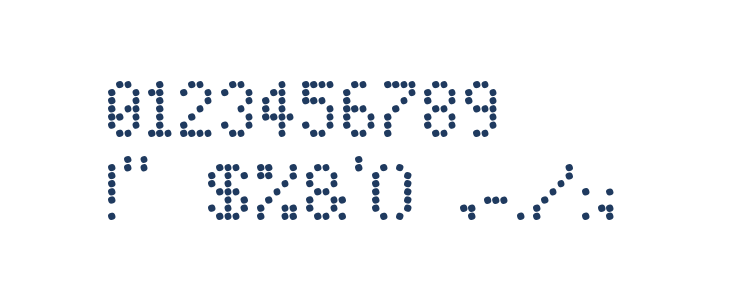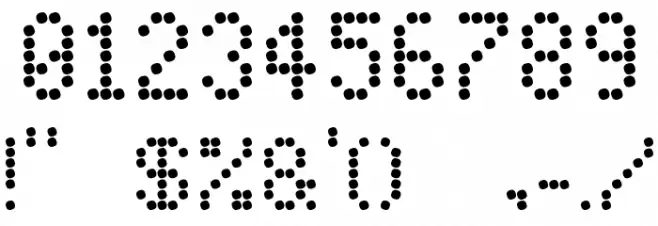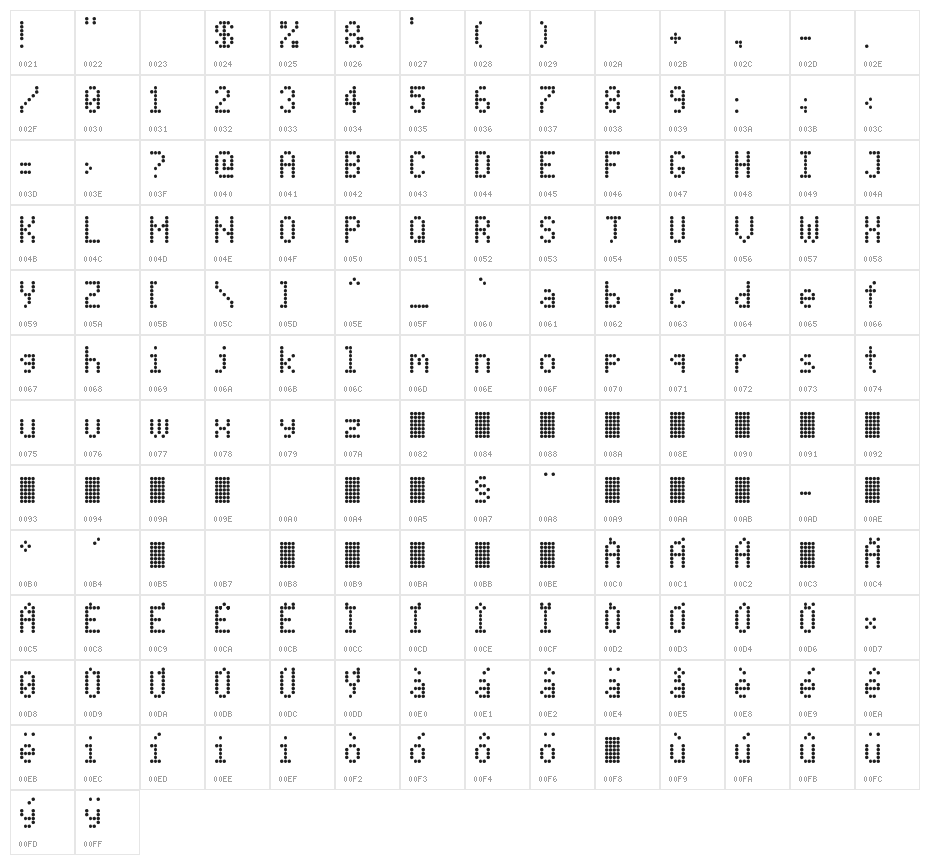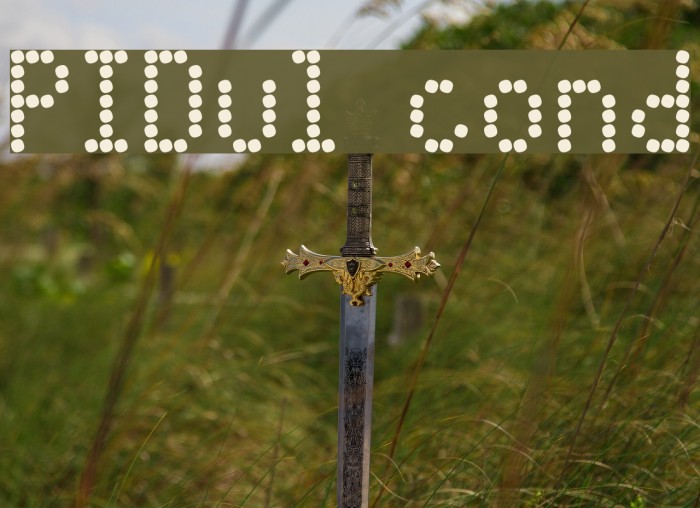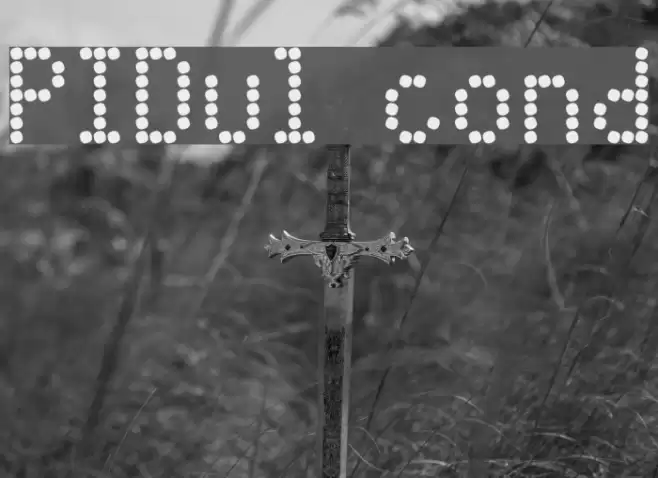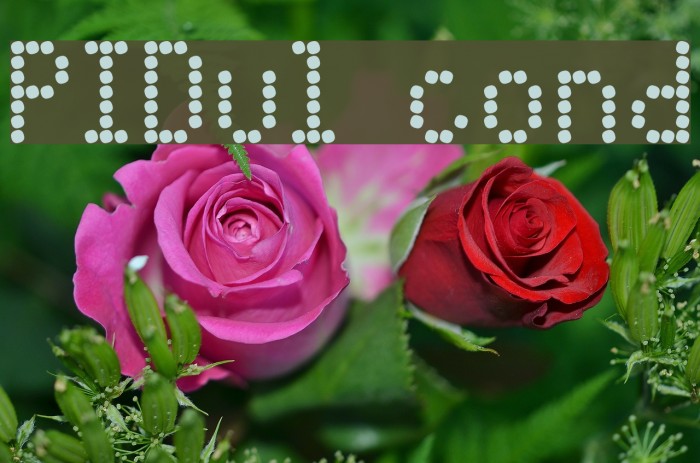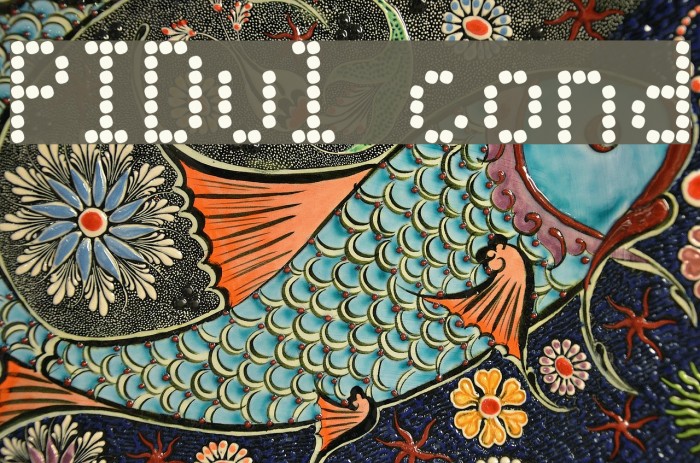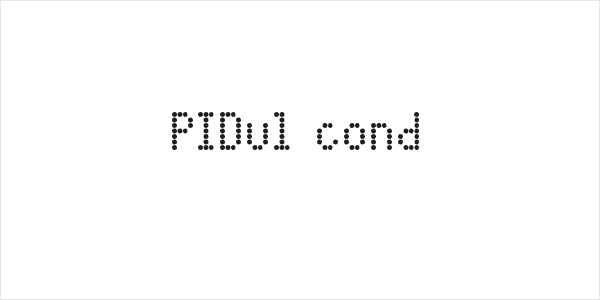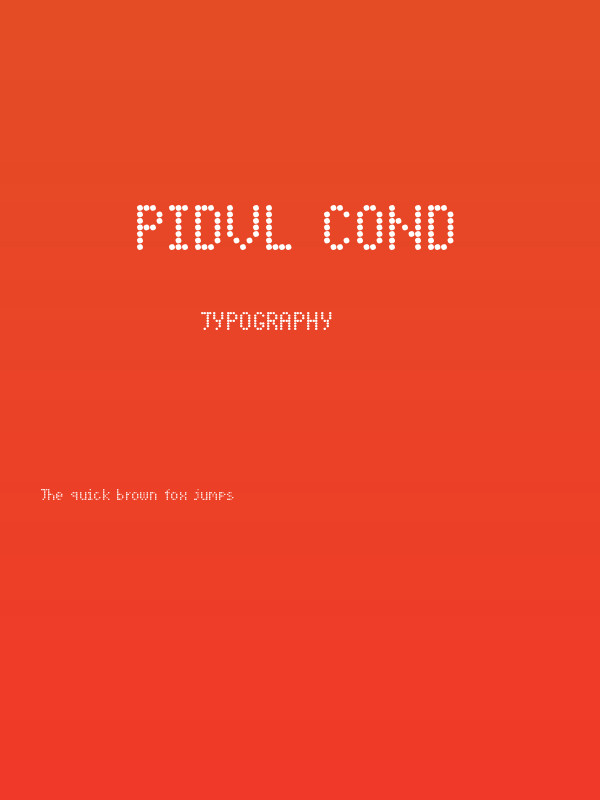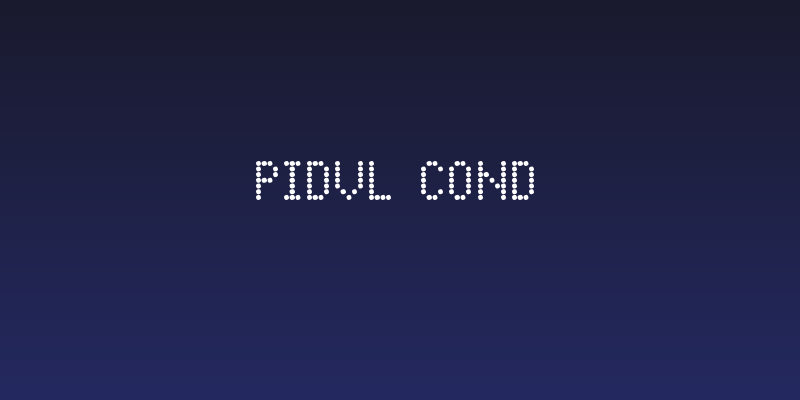
PIDvl cond Font
PIDvl cond Description
This font features a unique design where each character is composed of a series of evenly spaced dots, creating a digital and modern aesthetic. The characters are clearly legible, with a consistent pattern that maintains uniformity across both uppercase and lowercase letters, as well as numbers and special characters. The dot-based structure gives it a playful yet structured appearance, making it stand out in any design. Its geometric form is both eye-catching and functional, suitable for a variety of creative applications.
| Use Case | Headlines, Logos, Digital displays |
| Proposed Projects | Ideal for digital displays, tech-themed designs, modern art projects, and educational materials. |